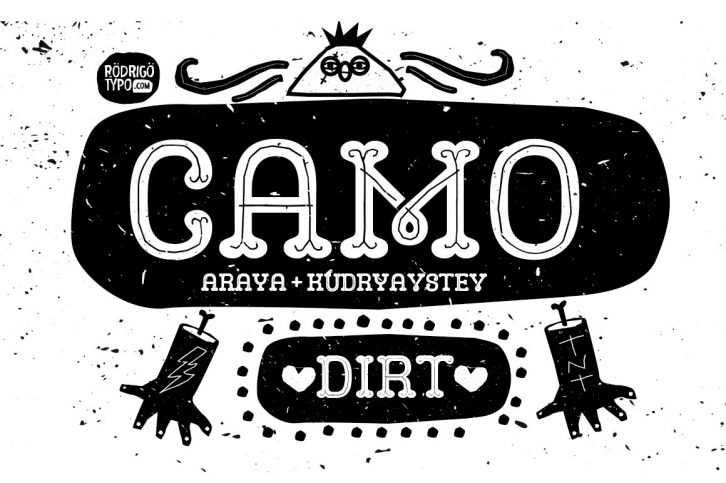
CAMO DIRT
Authors: Rodrigo Araya Salas + Andrey Kudryavstev
Concept: Camo Dirt is a variant of Camo.. a version more rough and dirt
with a set of Dingbat